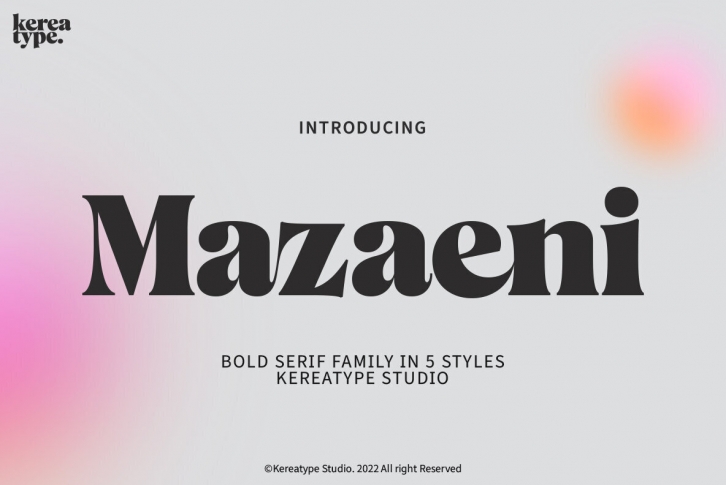
A bold serif font family with an elegant and versatile design, Mazaeni is perfect for use in a wide range of applications including logos or posters. The typeface includes language support that works well across different cultures as it offers ligatures to suit your needs; if this isn't enough then there are OpenType alternates available on top!